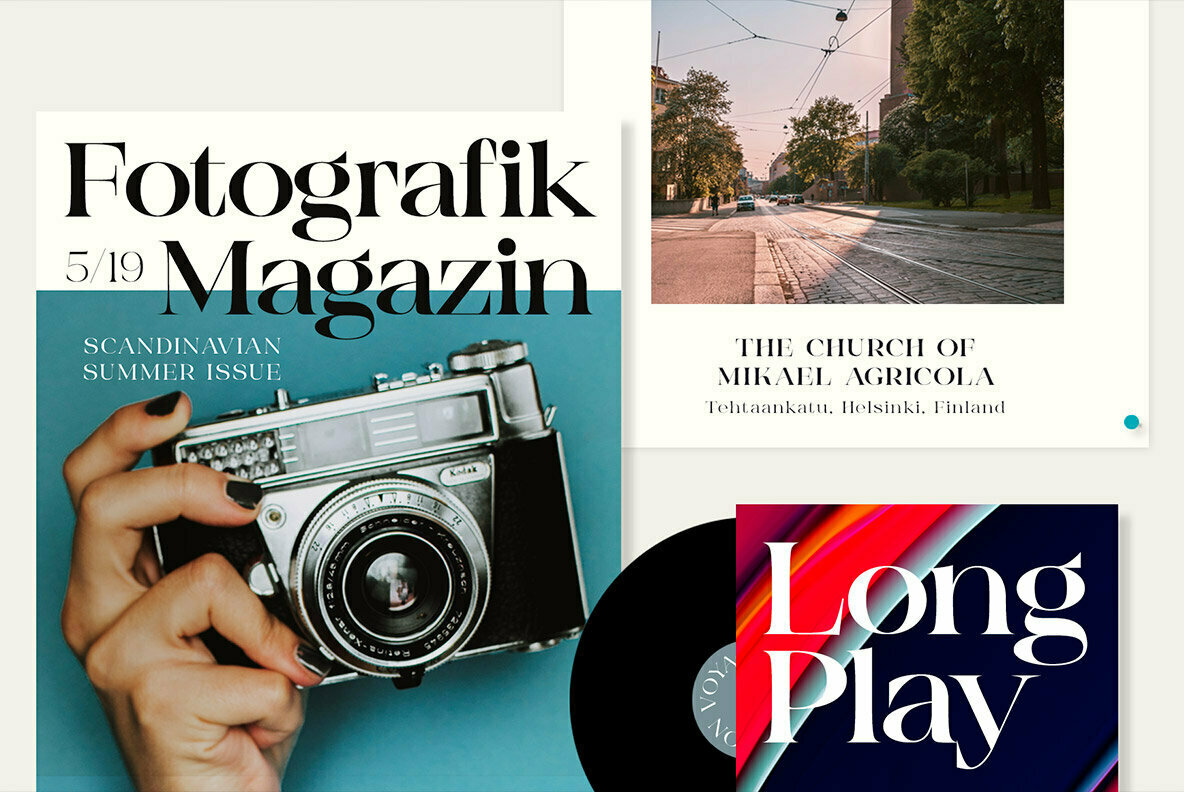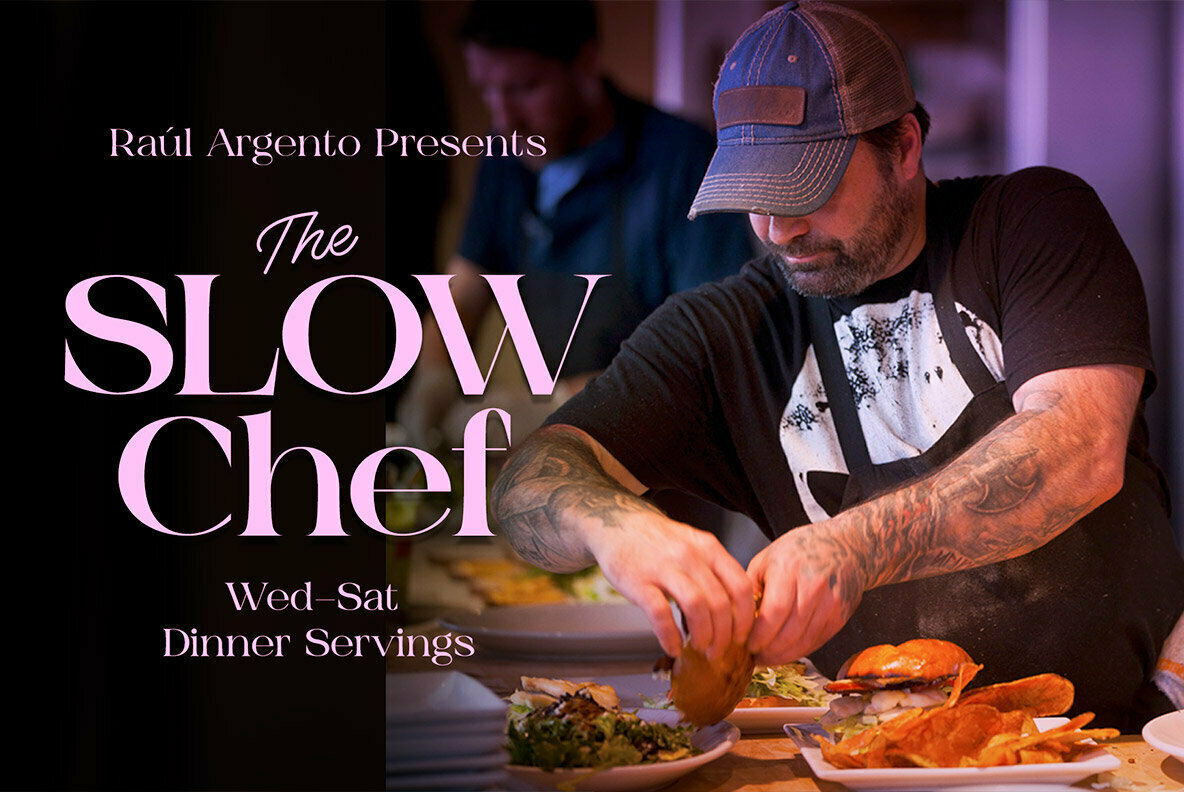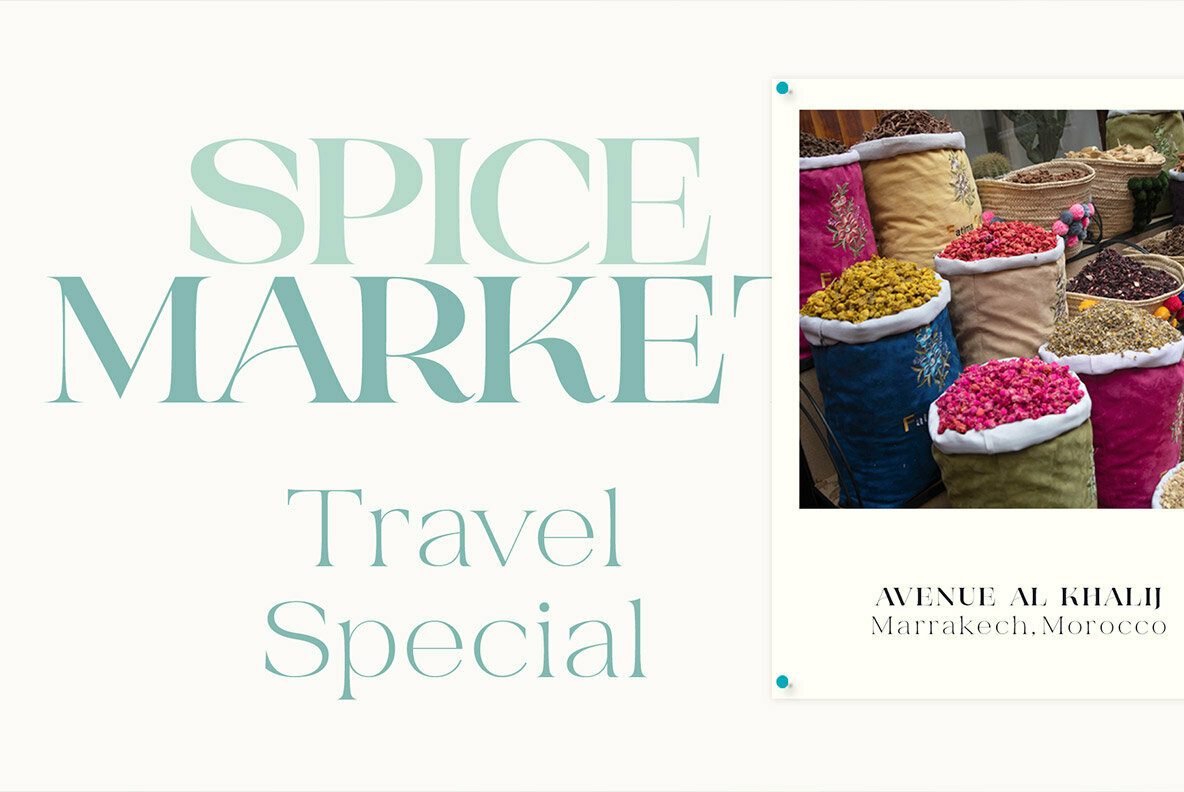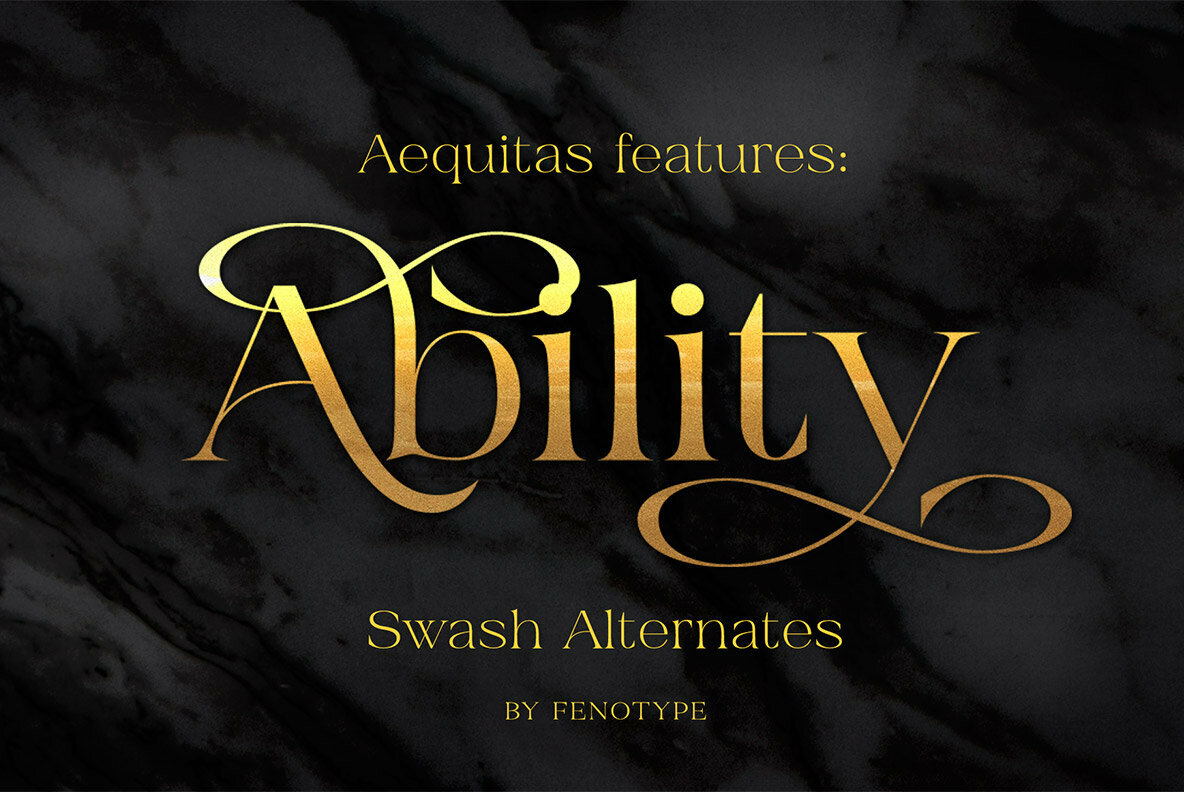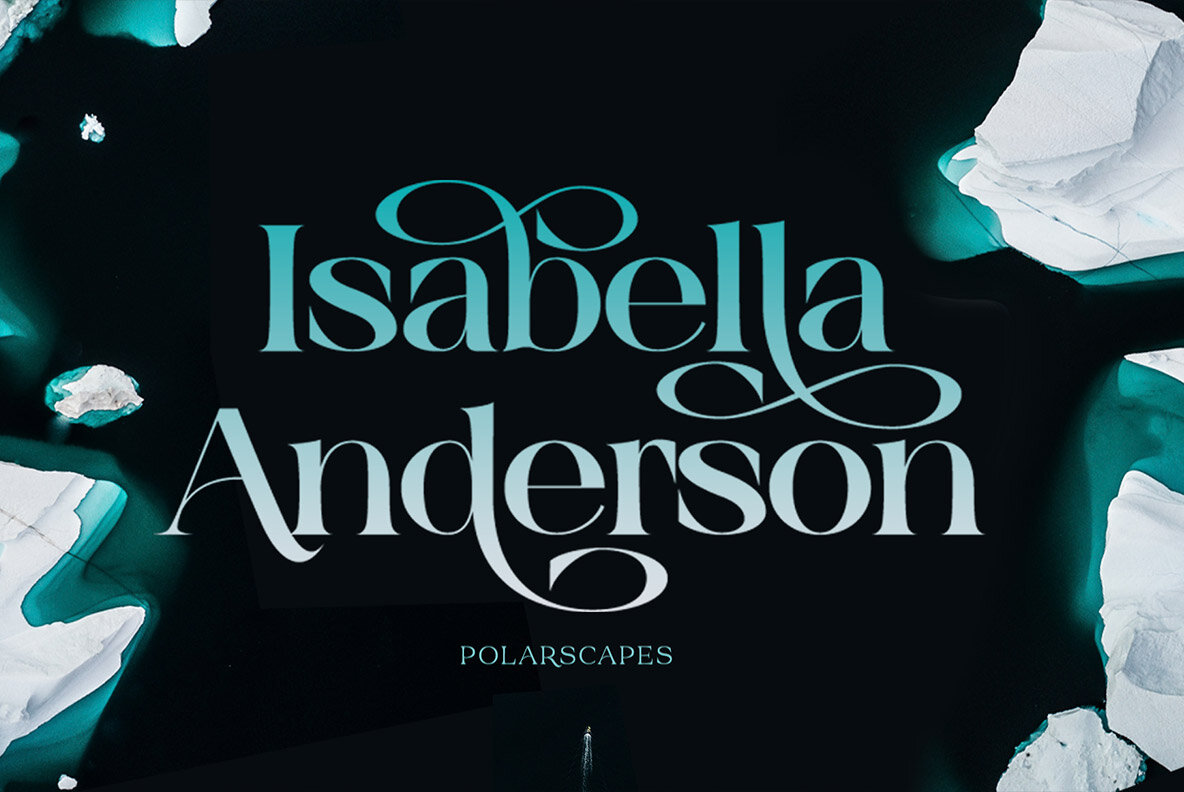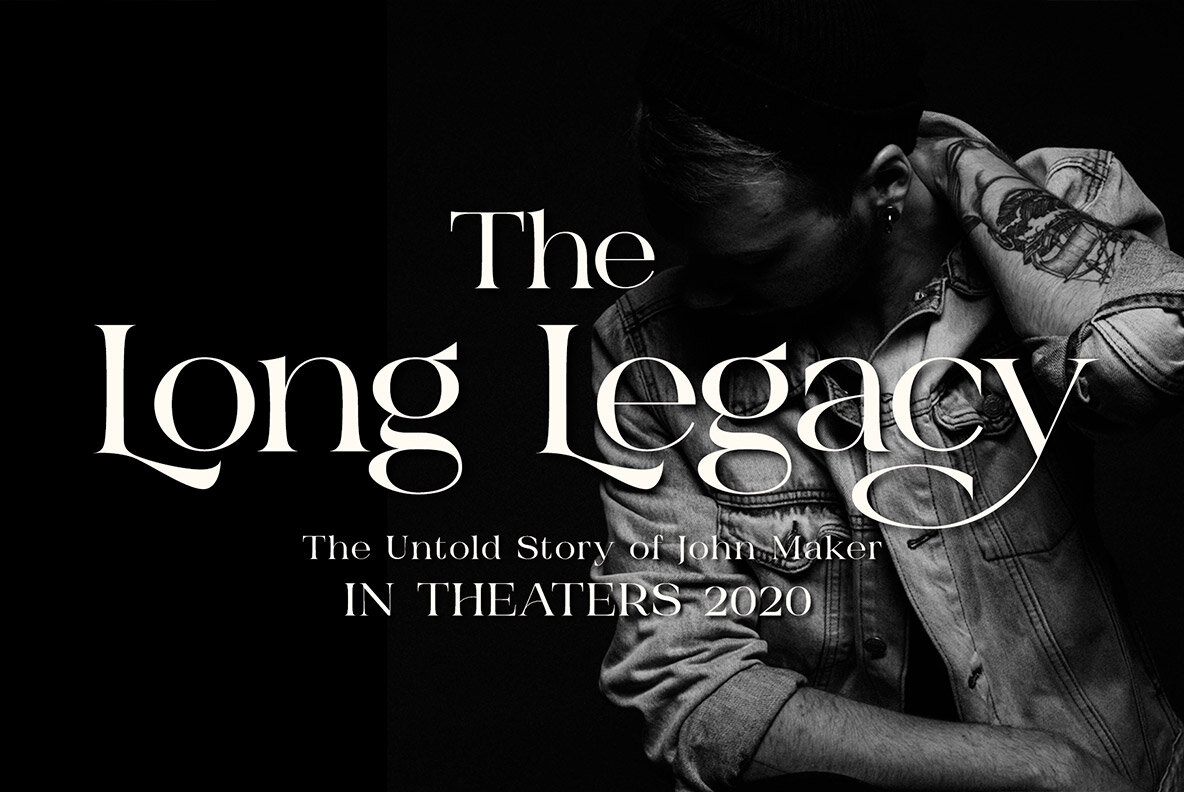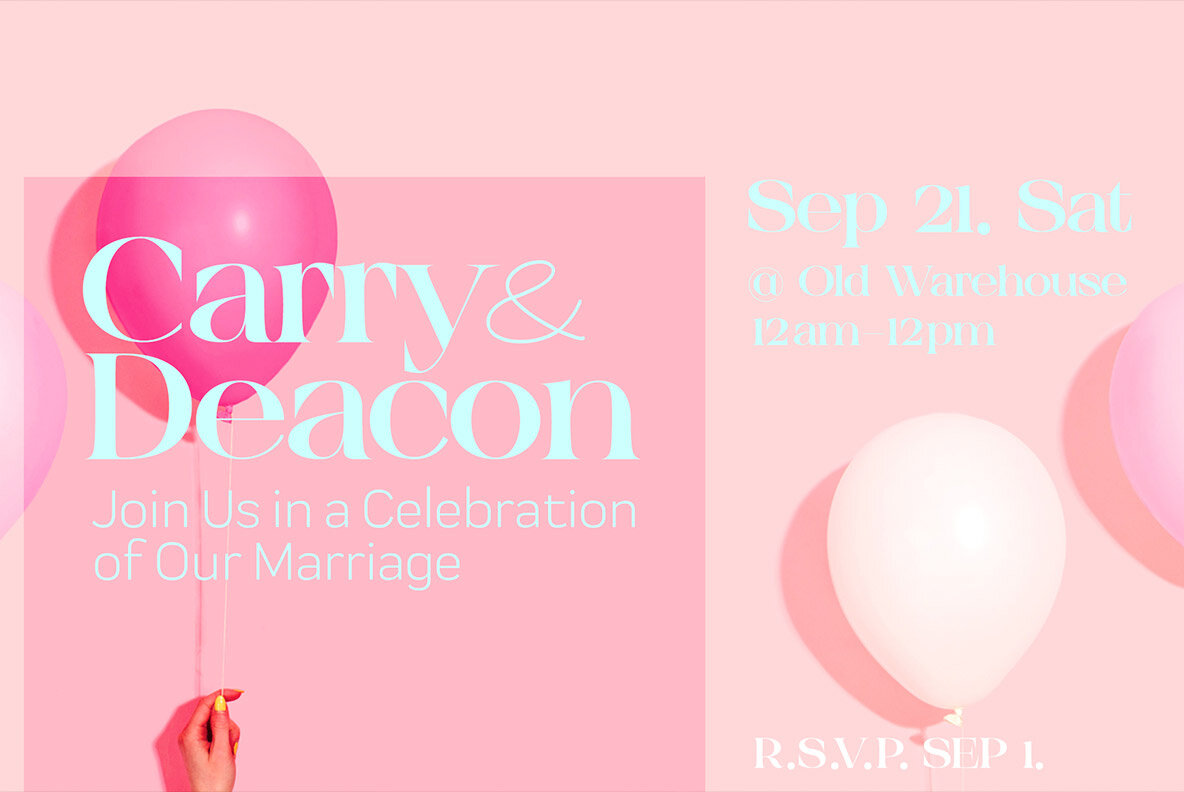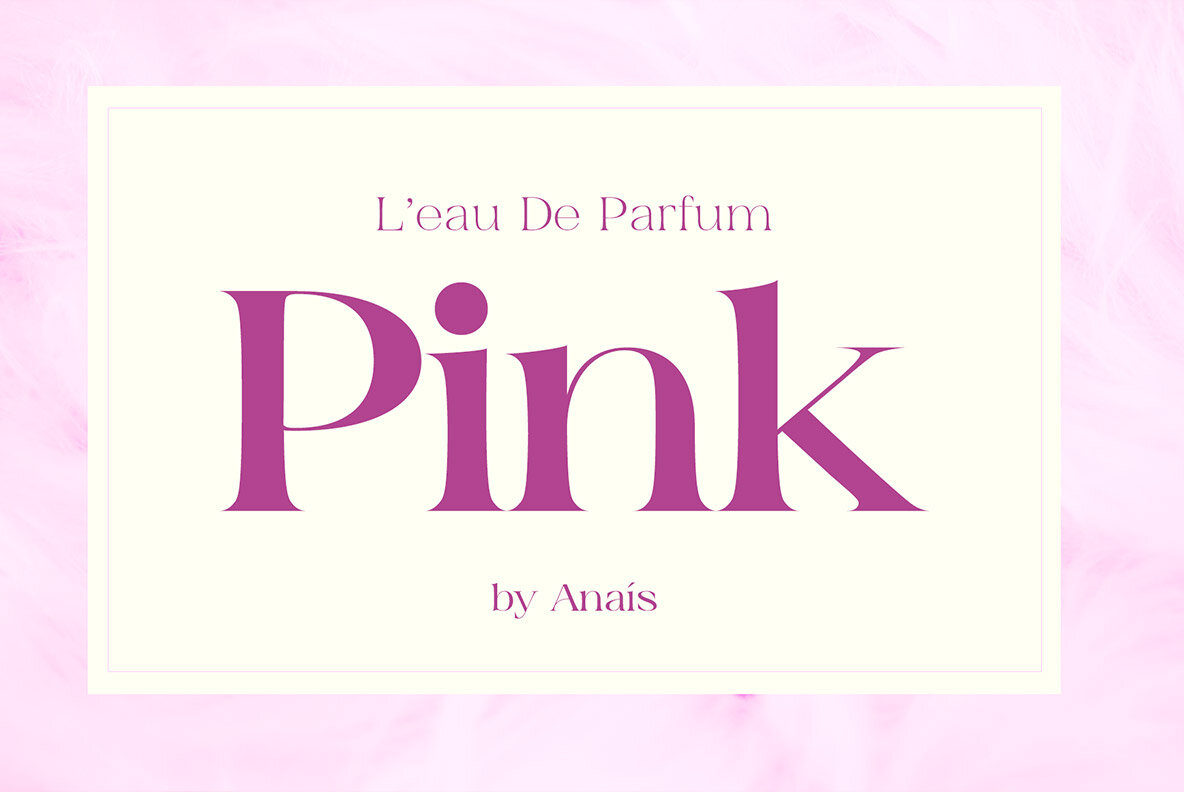
Aequitas Font
Aequitas Regular
Aequitas Bold
Aequitas Black
The Aequitas typeface, crafted by Emil Bertell, captures attention with its expressive Roman Serif design. Offering wide characters and three distinct weights, this typeface provides versatility for graphic designers and creative directors seeking to enhance their projects. Designed to complement various creative endeavors, Aequitas features a suite of stylistic elements that enrich design work. It is particularly well-suited for applications in fashion, branding, packaging, and editorial projects, making it a valuable addition to any designer's toolkit.Aequitas Roman Serif: Expressive Elegance in Typeface